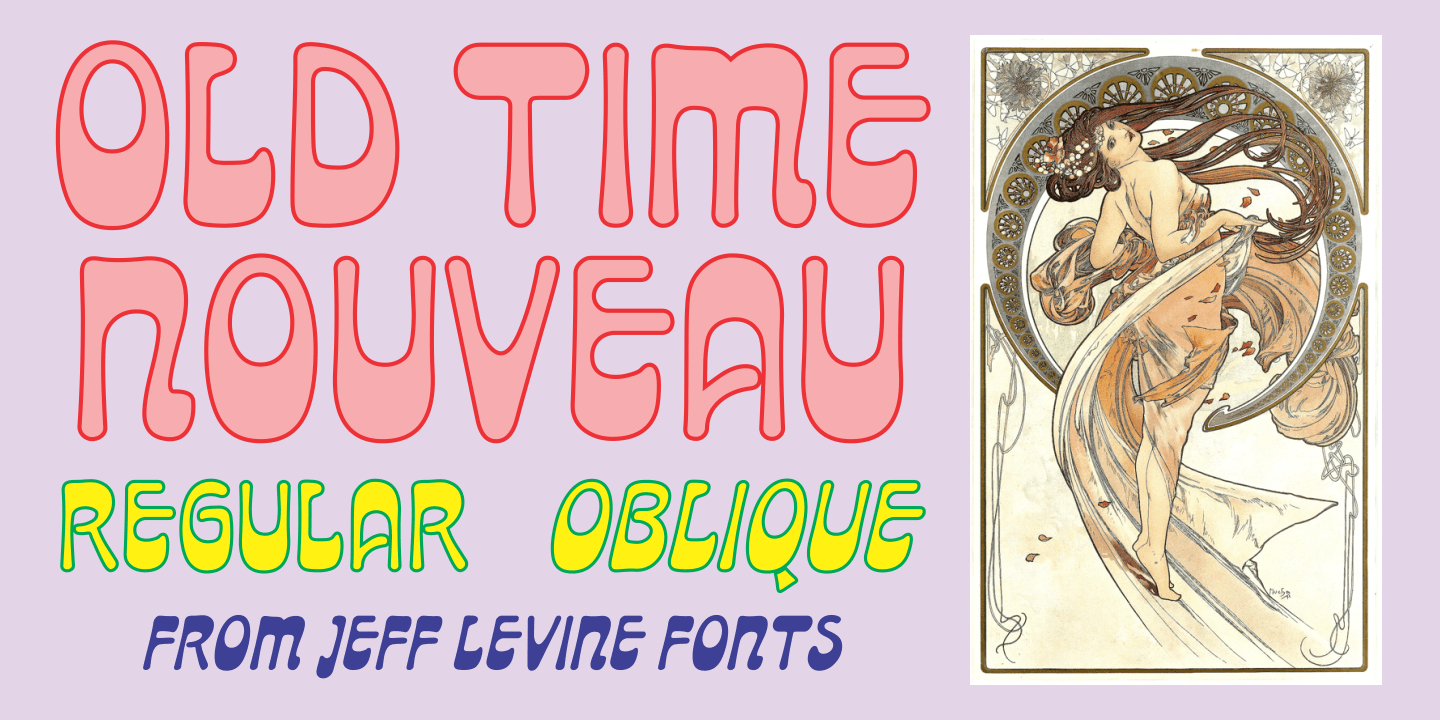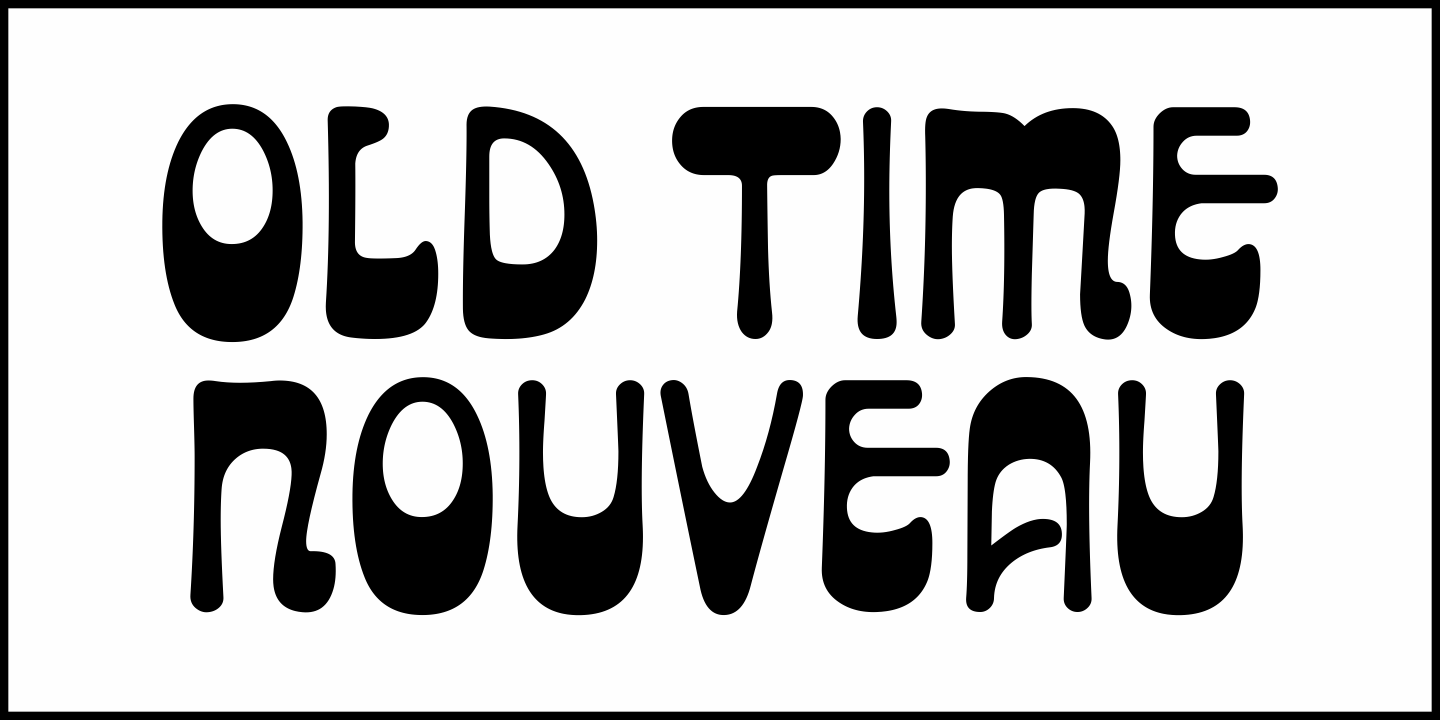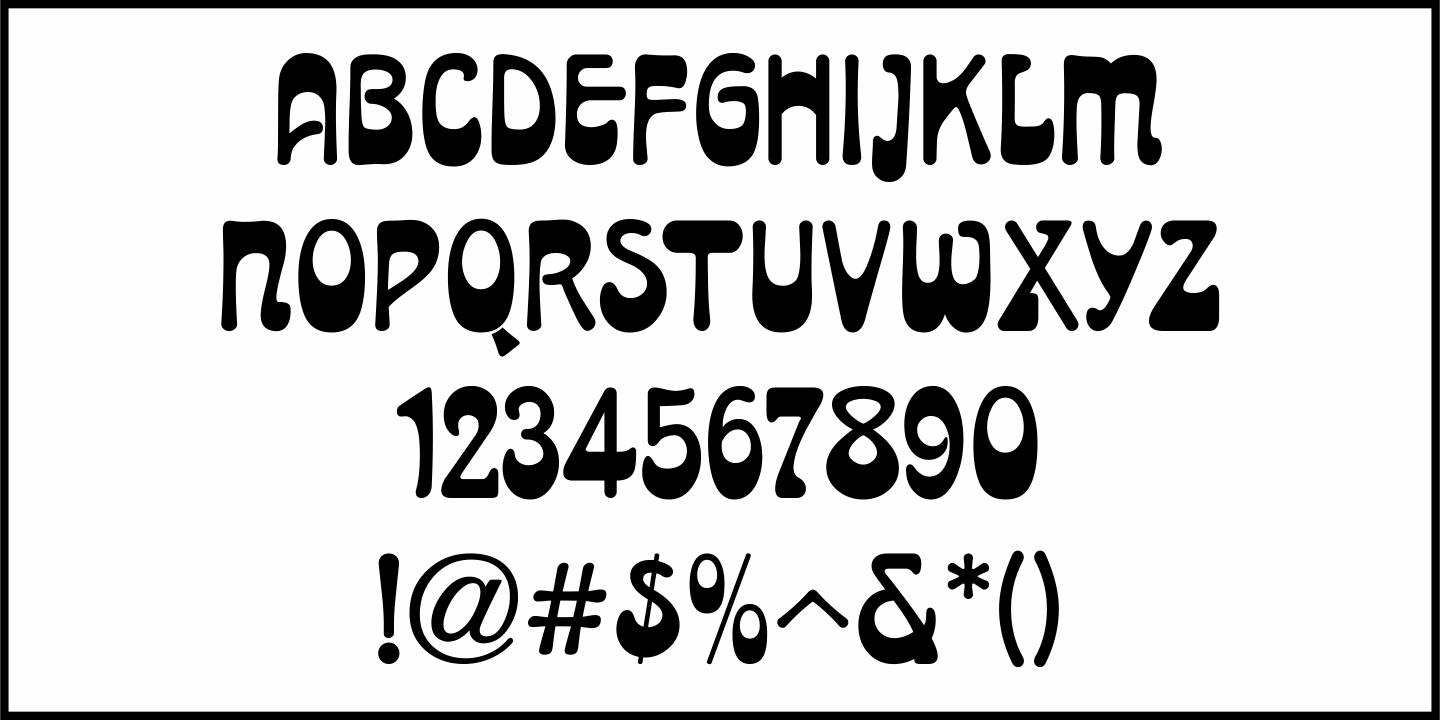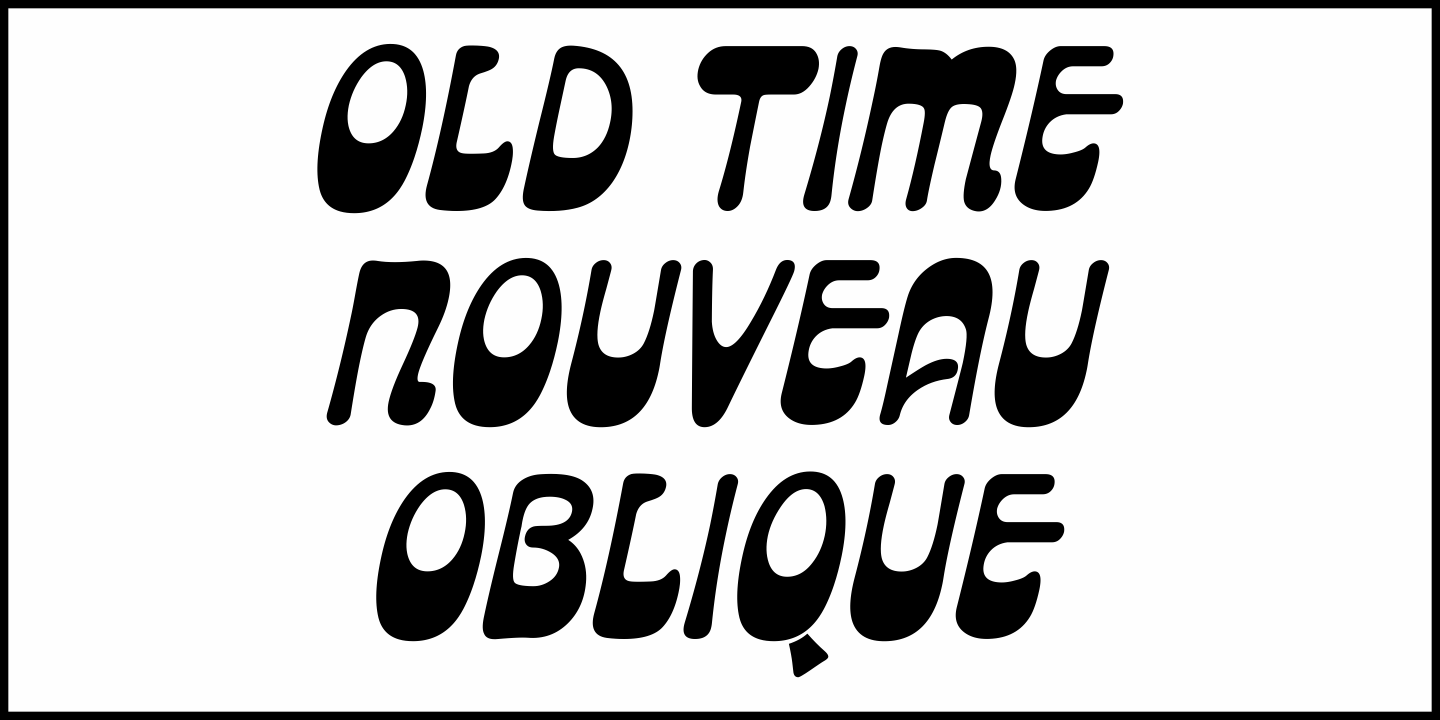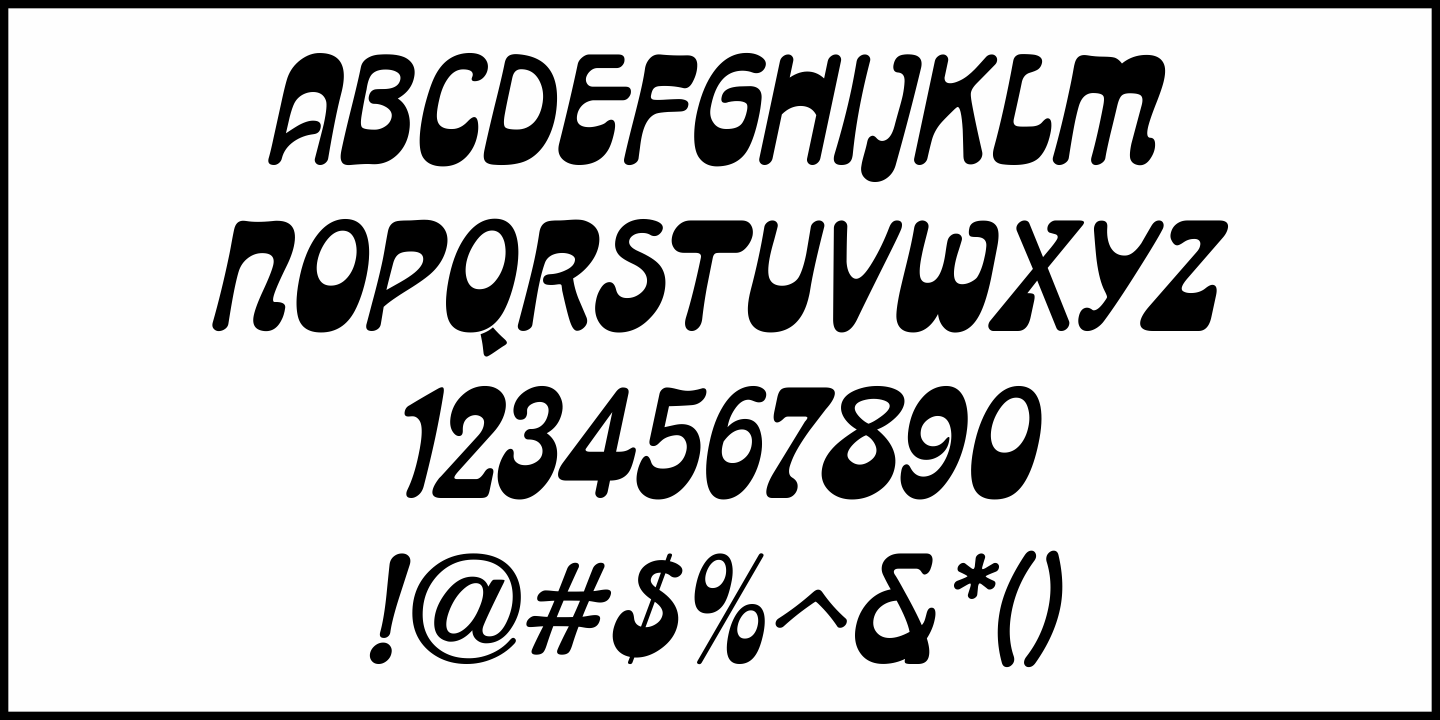
Old Time Nouveau
The 1914 sign lettering instruction book “Art Alphabets and Lettering” by J. M. Bergling showcased many hand lettered alphabets as an inspiration to both up-and-coming and established sign painters.
One page in particular featured a classic free-form Art Nouveau style with rounded shapes. This style of lettering was emulated in the 1960s by designers of rock concert posters, so the style is reminiscent of the Art Nouveau period as well as the 1960s.
Old Time Nouveau JNL is available in both regular and oblique versions.
Old Time Nouveau JNL Regular by Jeff Levine Fonts